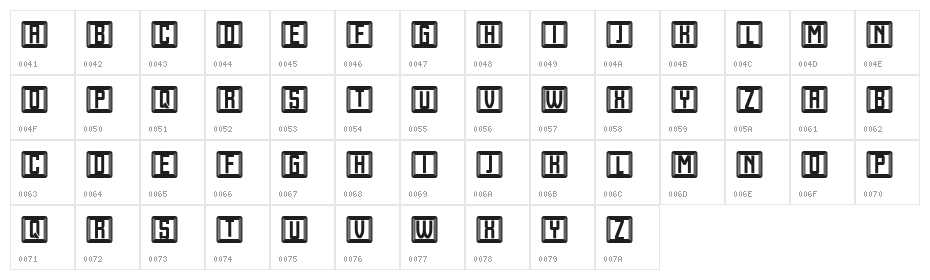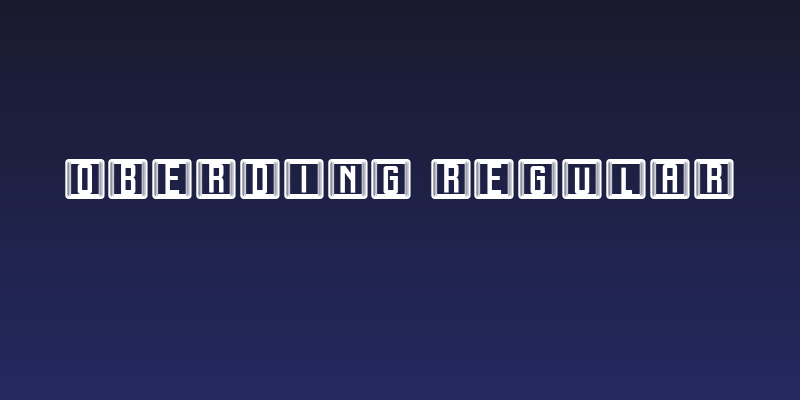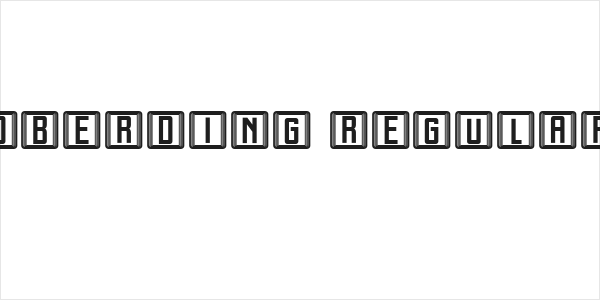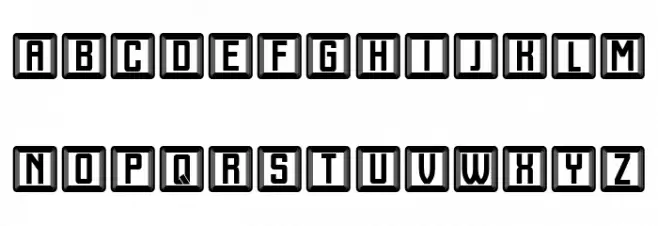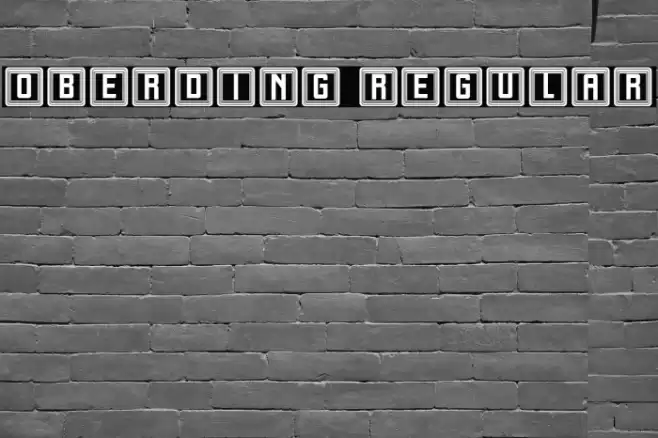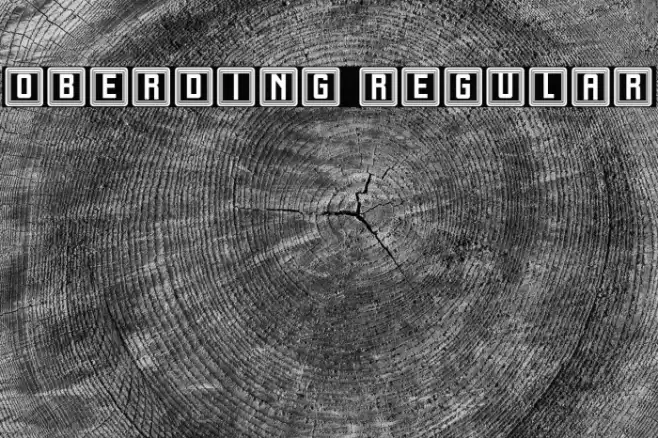
Oberding Regular Font
Oberding Regular Description
This font features a bold, geometric design with each character enclosed in a square, giving it a distinct, modern appearance. The letters are uppercase and have a uniform width, contributing to a monospaced feel. The thick outlines and sharp corners enhance its boldness, making it stand out in any design. The style is reminiscent of digital or retro aesthetics, suitable for projects that require a strong visual impact.
| Proposed Projects | Ideal for digital designs, video game interfaces, posters, and branding that require a strong, modern aesthetic. |